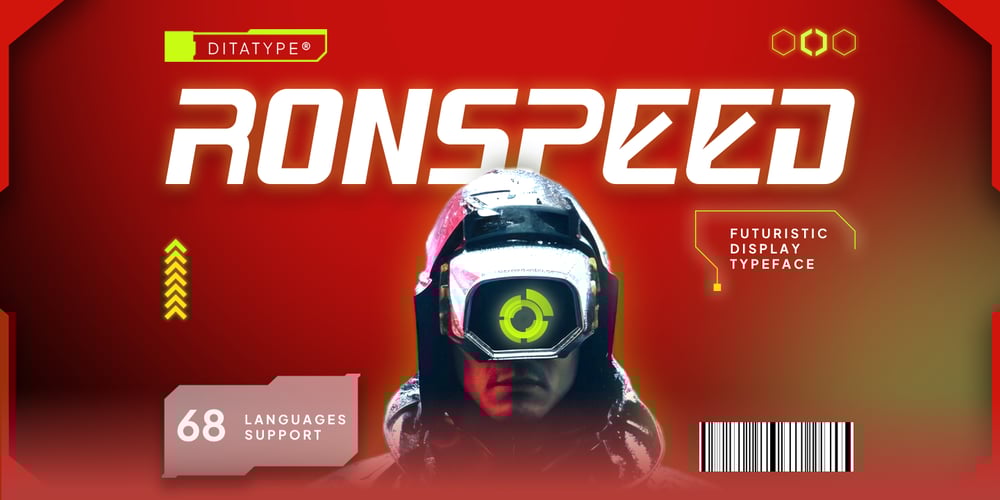
Ronspeed Font Family was designed by Donis Miftahudin and published by Ditatype. Ronspeed contains 1 styles and family package options. Introducing Ronspeed – a bold, futuristic display font designed for impact. Crafted in uppercase with a thick weight, Ronspeed exudes strength and precision. Its sharp and sturdy design elements reflect a modern, high-tech aesthetic, making it perfect to add a forward-looking, cutting-edge style. Ronspeed brings a powerful and dynamic presence to your designs, ensuring they stand out with a sleek, futuristic edge. In addition, enjoy the features here.Features: Multilingual Supports PUA Encoded Numerals and Punctuations Ronspeed fits in logos, posters, flyers, branding materials, print media, editorial layouts, and many more designs. Find out more ways to use this font by taking a look at the font preview.Thanks for purchasing our fonts. Hopefully, you have a great time using our font. Feel free to contact us anytime for further information or when you have trouble with the font. Thanks a lot and happy designing.